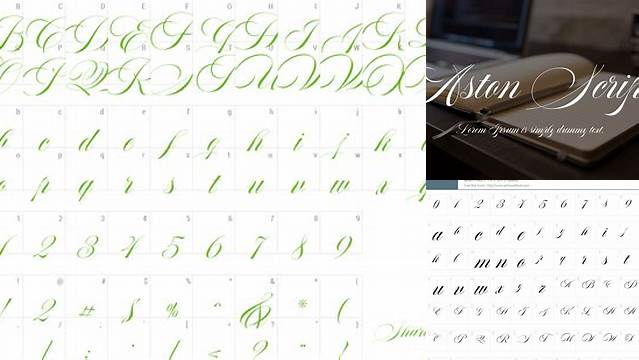
Hey guys! Are you looking to add a touch of elegance and personality to your designs? The Aston Script Font might just be what you need. It's a stylish, flowing script font that can elevate your projects, whether you're working on invitations, logos, or social media graphics. In this guide, we’ll dive deep into everything you need to know about the Aston Script Font, where to find it for free, and how to use it effectively. Let's get started!
Understanding the Aston Script Font
What Makes Aston Script Font Special?
The Aston Script Font stands out due to its delicate curves and sophisticated appearance. Unlike blocky or rigid fonts, Aston Script brings a sense of fluidity and grace. Its unique letterforms make it perfect for projects that require a personal or handcrafted feel. Imagine using it for wedding invitations or a boutique's logo – it adds an instant touch of class. The font’s versatility lies in its ability to be both eye-catching and legible, a combination that's crucial for effective design. Moreover, its balanced strokes and refined details ensure it looks great in both large and small sizes, making it suitable for a wide range of applications. It’s this blend of aesthetic appeal and practicality that makes Aston Script a favorite among designers.
The History and Origin of Aston Script Font
Tracing the origins of Aston Script Font can give you a deeper appreciation for its design. While specific details about its creator might be elusive, understanding the influences and inspirations behind script fonts in general can provide context. Script fonts often draw inspiration from traditional calligraphy and handwriting, aiming to replicate the natural flow and rhythm of human script. This particular font likely emerged from a desire to create a modern yet timeless script that could bridge the gap between classic elegance and contemporary design trends. The font’s development probably involved meticulous attention to detail, ensuring each character harmonizes with the others to create a seamless and visually pleasing text. Knowing this background helps you appreciate the craftsmanship and thought that went into creating such a versatile and beautiful typeface. Designers often spend countless hours perfecting these details, making the font a true work of art.
Key Features and Characteristics of Aston Script Font
The Aston Script Font is characterized by several key features that make it unique and desirable. First and foremost, its flowing, connected letters create a sense of movement and fluidity, making it visually appealing. The font often includes elegant swashes and decorative elements that add a touch of sophistication. Its balanced strokes ensure legibility while maintaining a distinct personality. Aston Script Font typically features both uppercase and lowercase letters, numerals, and punctuation marks, providing a comprehensive toolkit for various design needs. Additionally, it often supports multiple languages, making it accessible to a global audience. The consistency in weight and style across all characters ensures a cohesive look, enhancing the overall aesthetic of your projects. These features combine to make Aston Script a versatile choice for any designer looking to add a personal and elegant touch to their work. It’s these details that elevate it from a simple font to a design asset.
Using Aston Script Font Effectively
Best Design Projects for Aston Script Font
The Aston Script Font shines in design projects that require a touch of elegance and personality. It's particularly well-suited for wedding invitations, where its flowing lines and sophisticated curves can add a romantic flair. It also works wonderfully for logos, especially for businesses in the beauty, fashion, or artisanal industries, where a handcrafted feel is valued. Social media graphics, blog headers, and website banners can benefit from Aston Script's eye-catching appeal, drawing viewers in with its distinctive style. Additionally, it can be used effectively in greeting cards, posters, and packaging designs, adding a personal and stylish touch. Its versatility makes it a go-to choice for designers seeking to create a memorable and impactful visual experience. The key is to leverage its unique characteristics to enhance the overall message and aesthetic of the project.
Pairing Aston Script Font with Other Fonts
To make the most of the Aston Script Font, it's essential to pair it with complementary fonts that balance its elegant and flowing style. A classic pairing is with a clean, sans-serif font like Helvetica or Arial, which provides a modern and legible contrast. Another excellent choice is a simple serif font like Times New Roman or Garamond, which adds a touch of tradition and readability. When pairing fonts, consider the overall tone and message of your design. Use the Aston Script Font for headings or decorative elements and the complementary font for body text to ensure clarity and balance. Avoid pairing it with other overly decorative or script fonts, as this can create a cluttered and overwhelming effect. The goal is to create a harmonious combination that enhances the overall visual appeal and readability of your design. A well-chosen font pairing can elevate your project and make it more engaging.
In conclusion, the Aston Script Font is a beautiful and versatile typeface that can add a touch of elegance and personality to your design projects. By understanding its characteristics, finding safe download sources, using it effectively, and troubleshooting common issues, you can make the most of this font. Remember to always respect font licensing terms and explore alternative fonts to find the perfect fit for your needs. With a little creativity and attention to detail, Aston Script Font can help you create stunning and memorable designs. Happy designing, guys!